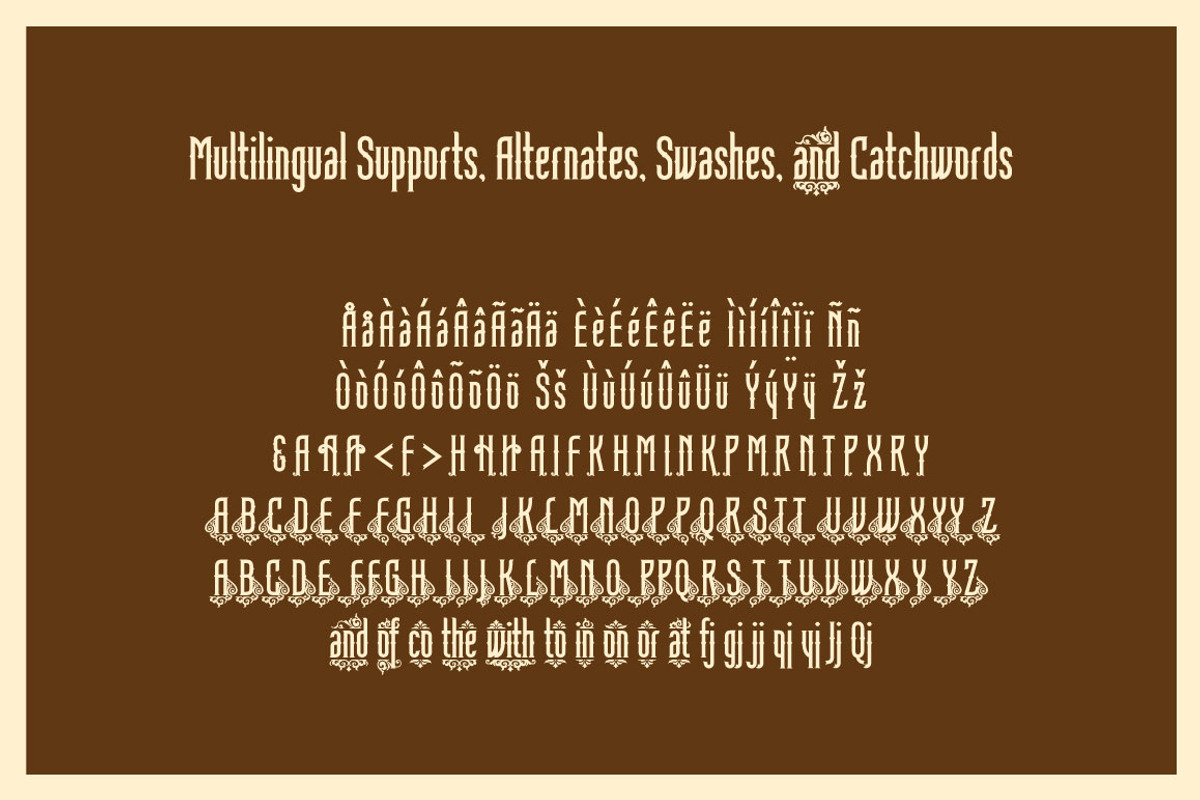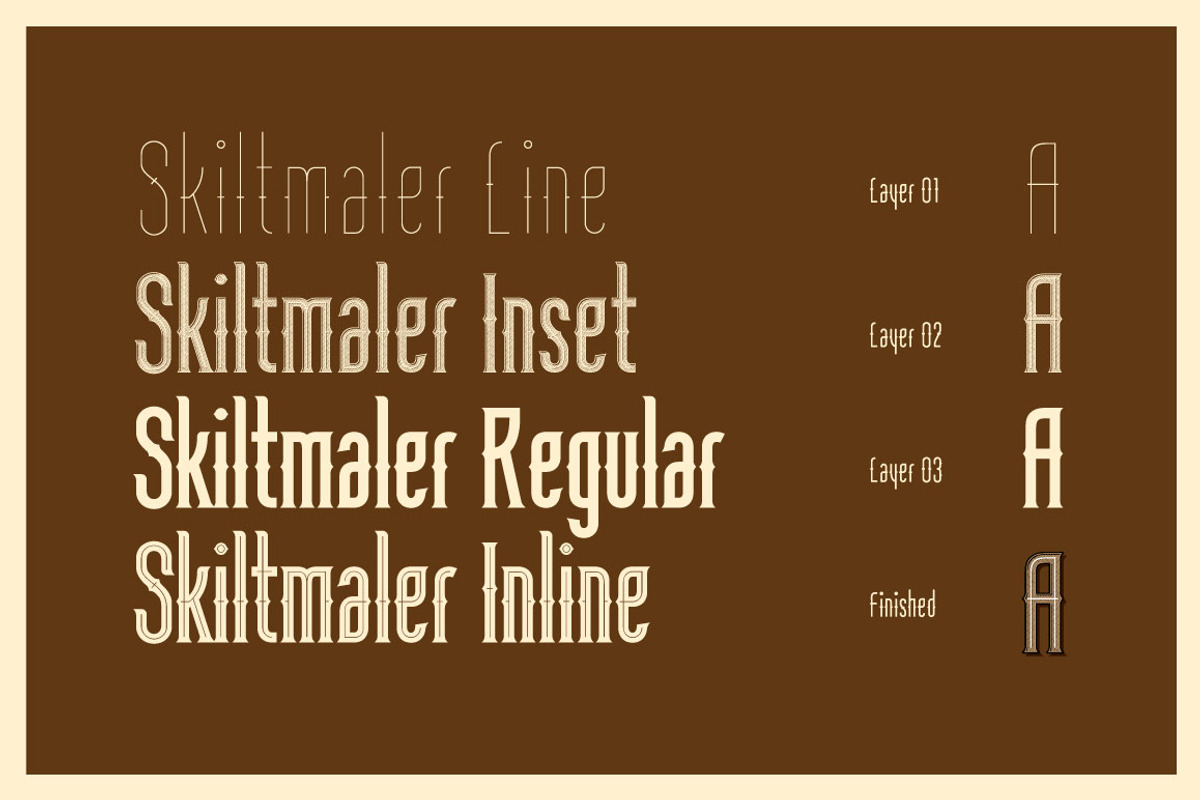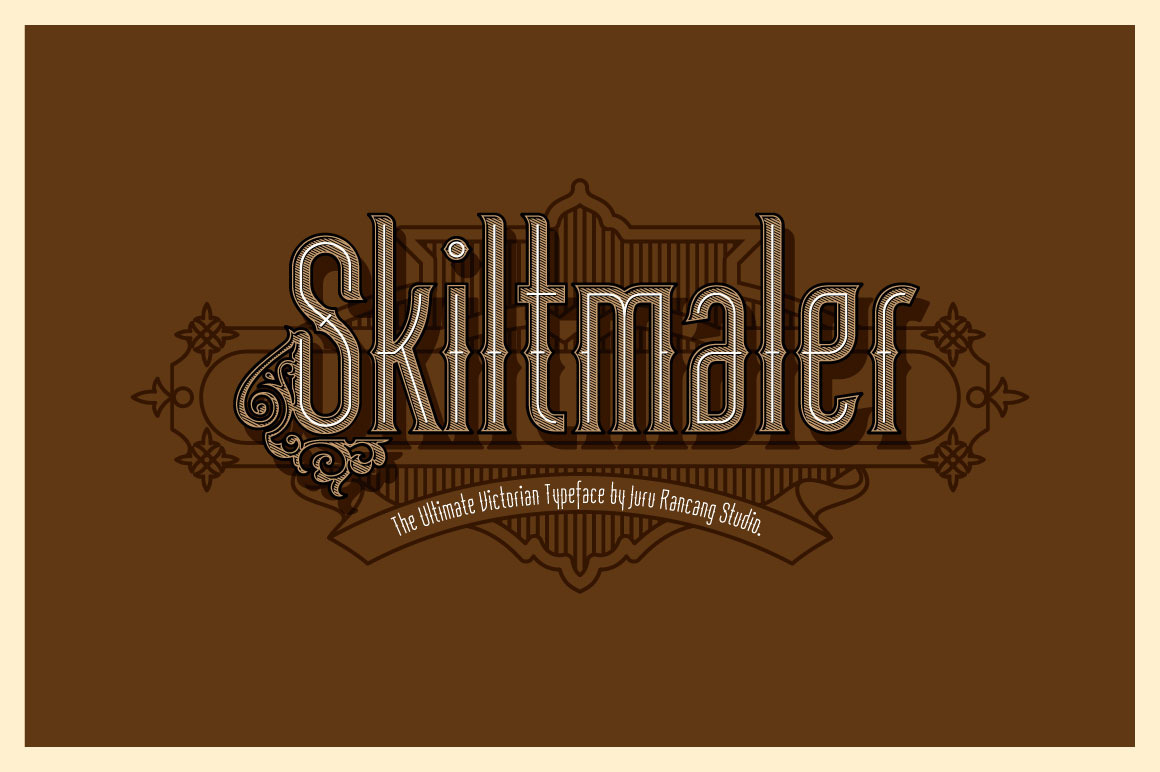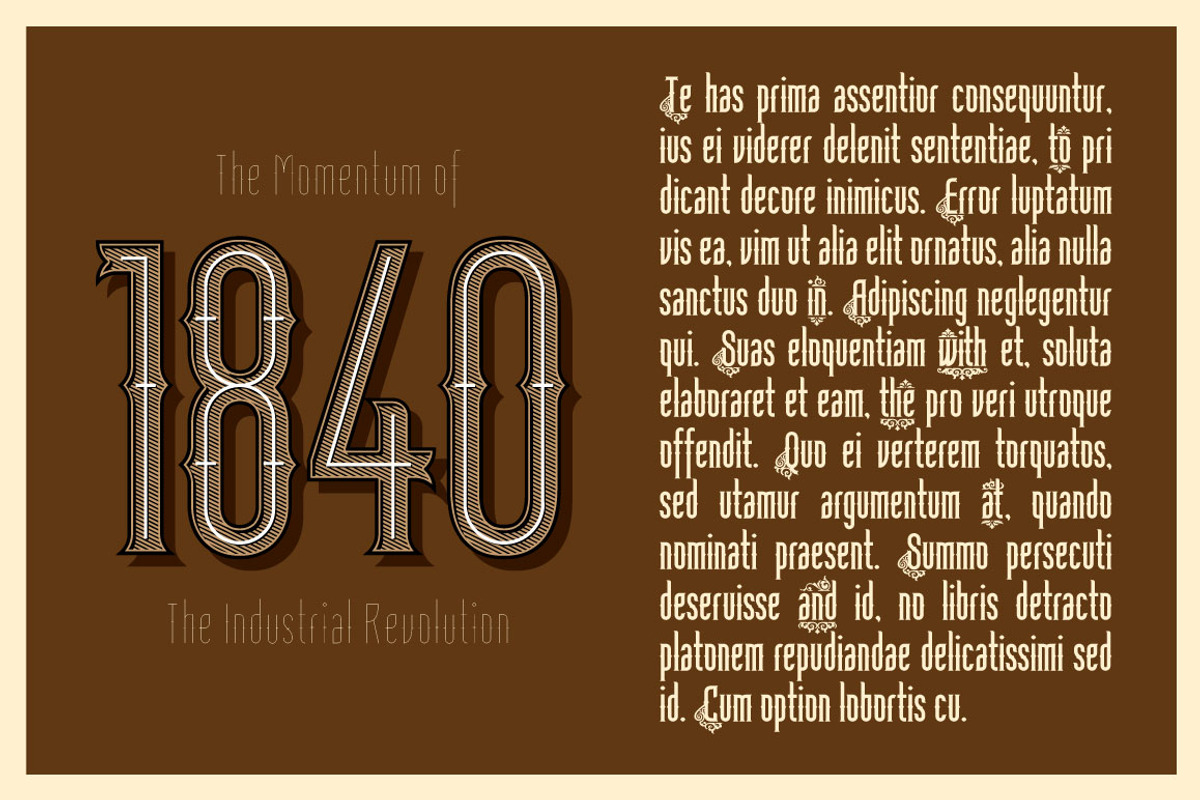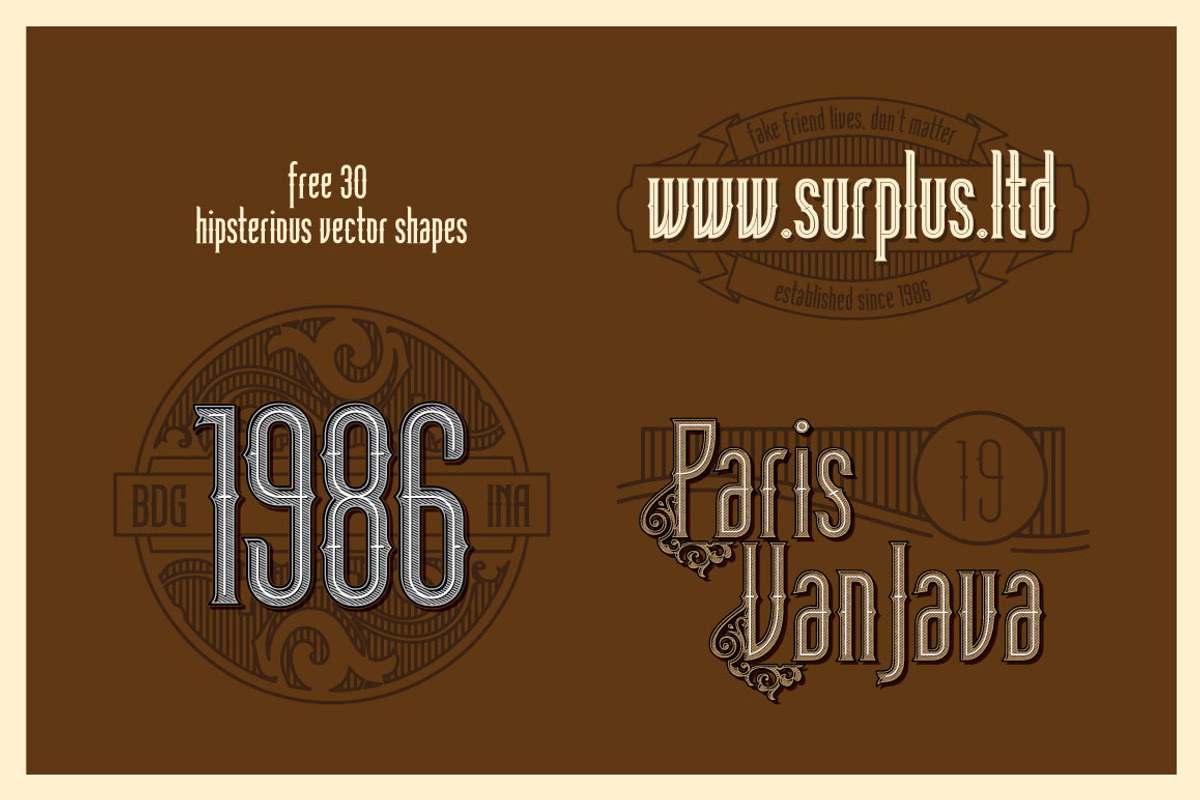
Skiltmaler Typeface
Introducing Skiltmaler—a captivating typeface inspired by the decorative arts of the Victorian era (1837-1901). This period gave rise to vibrant fly poster typography, characterized by bold colors and large font sizes made from movable metal type. The innovative use of wood for creating two-colored typefaces further enhanced the three-dimensional effects seen on posters, often featuring striking drop shadows.
Skiltmaler shines not only in regular text but truly excels in large displays, making it ideal for short phrases and standout characters in your designs. Elevate your projects with the rich history and bold aesthetic of Skiltmaler!